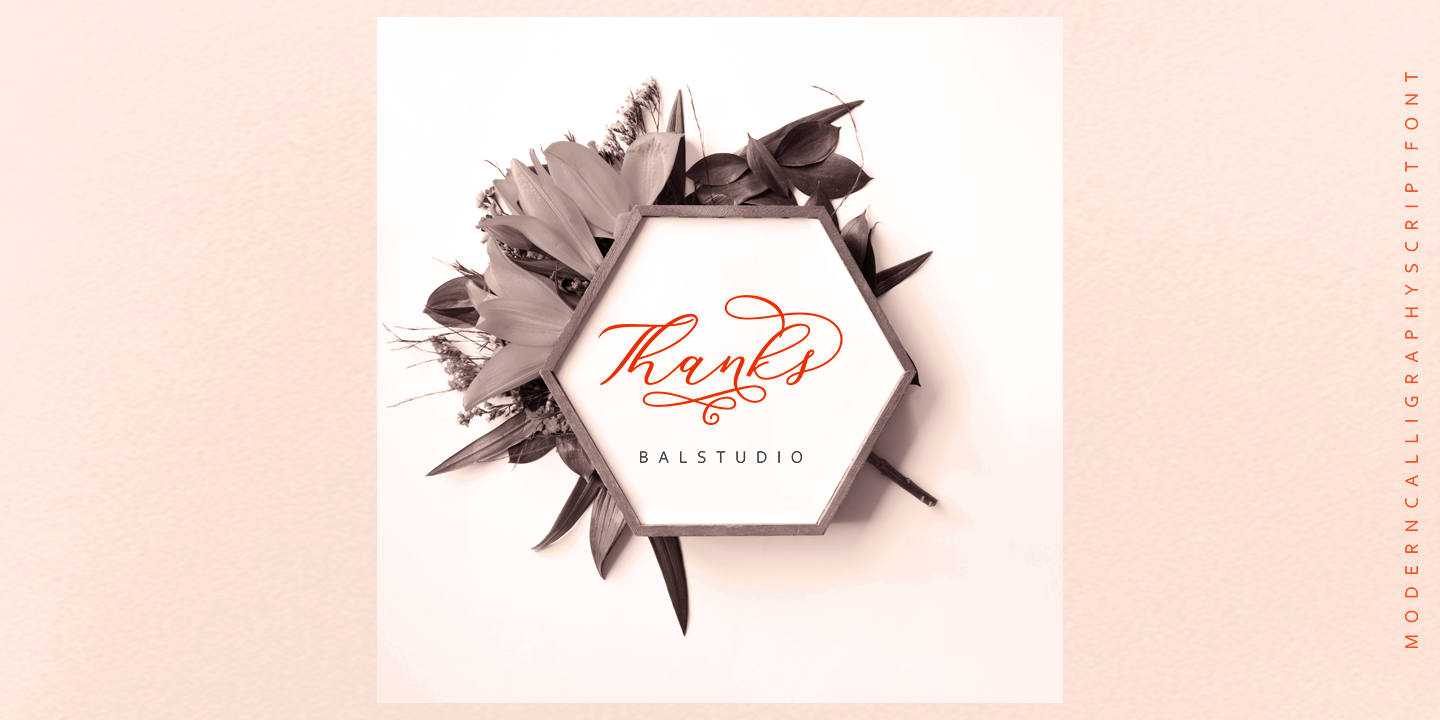
Ladies Style Free Download
Ladies Style Font Free Download
Ladies Style Font excels across diverse design applications including fashion boutique branding, women's lifestyle marketing, beauty salon communications, feminine product packaging, fashion magazine design, style blog layouts, cosmetics advertising, and upscale women's service materials. Its stylish character makes it particularly effective for projects requiring fashion authority while maintaining contemporary appeal, ensuring your designs convey style sophistication and feminine elegance across both digital platforms and glossy print materials.
What makes Ladies Style Font truly exciting is its innovative approach to typography that perfectly captures the essence of feminine fashion and contemporary style through carefully crafted letterforms. The font features precisely designed characters that incorporate subtle fashion elements and elegant proportions that create striking style impact while preserving optimal communication effectiveness. Its distinctive character construction combines fashion inspiration with modern functionality, creating text that feels both stylishly current and professionally reliable. The font's optimized spacing and fashionable character relationships ensure superior performance across various style applications while maintaining the characteristic sophistication that defines its fashion personality.
Ladies Style Font offers a comprehensive type family designed to support diverse fashion and feminine design requirements. The family typically includes ultra-light, light, regular, medium, bold, and black weights, along with corresponding italic variations that provide complete flexibility for stylish typography compositions. Many versions feature extended character sets with fashion symbols, style ornaments, and specialized glyphs that enhance authentic feminine aesthetic applications.
The Ladies Style Font Free Download represents exceptional value for designers working on fashion-focused and feminine lifestyle projects across multiple sectors. Whether developing women's fashion branding, creating beauty service communications, designing style magazine materials, or producing feminine lifestyle content, this font delivers consistent elegance and memorable fashion appeal. Its style characteristics make it particularly effective for industries including women's fashion, beauty services, lifestyle media, and feminine retail sectors seeking to communicate contemporary style and fashionable sophistication.
For maximum effectiveness, Ladies Style Font combines beautifully with trendy color palettes and fashionable design elements that reinforce its style message. Its elegant presence excels in headline applications while maintaining excellent performance in fashion communication contexts. The font's style sophistication and feminine appeal make it an invaluable tool for creating fashionable communications that resonate with style-conscious audiences appreciating contemporary fashion and feminine elegance.